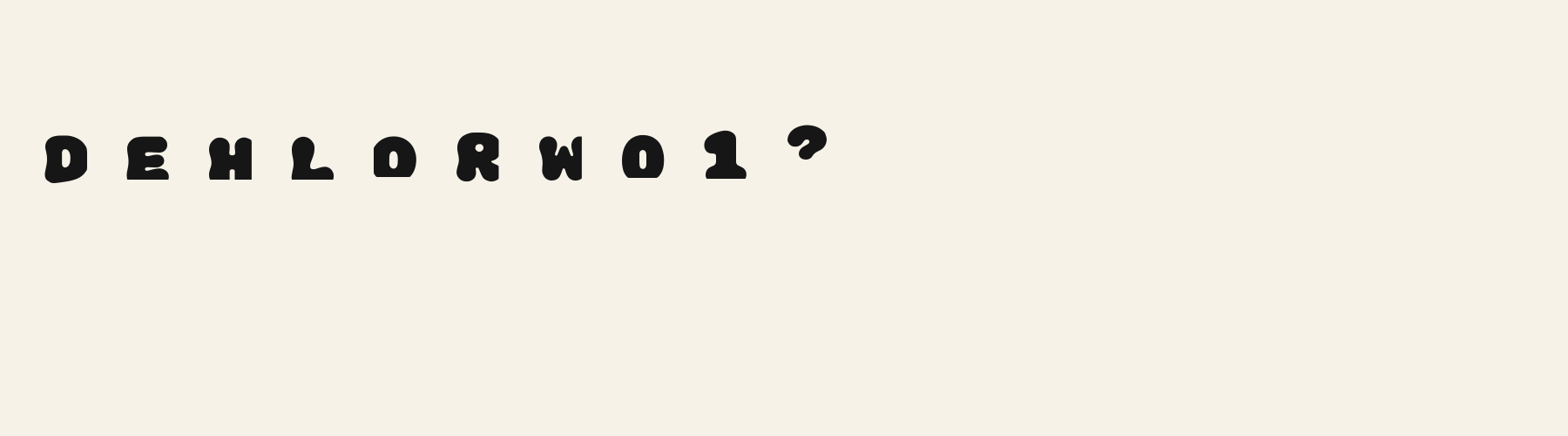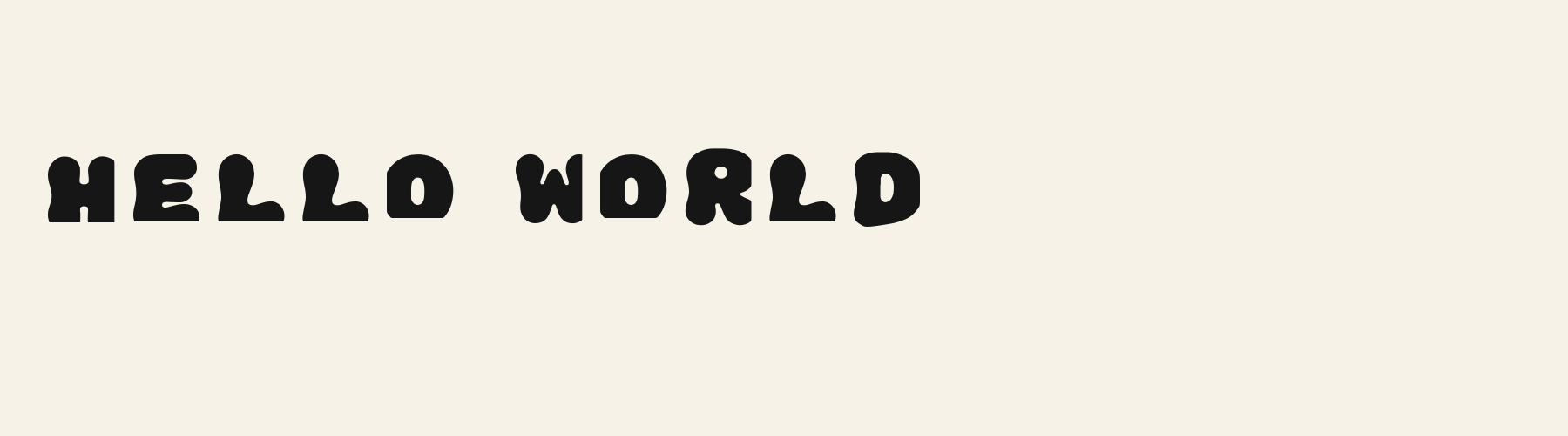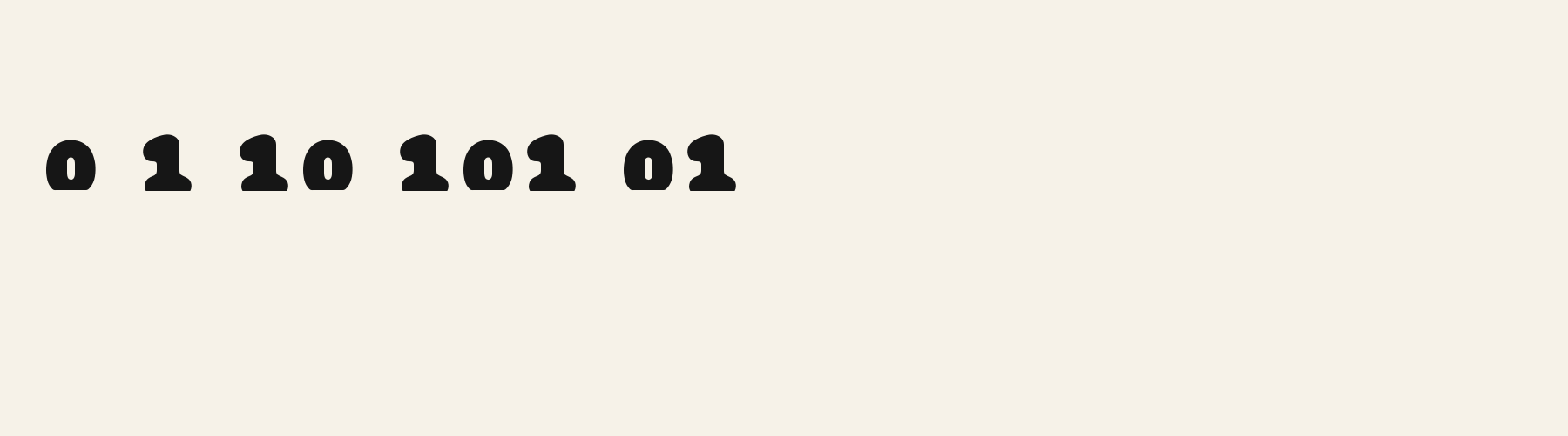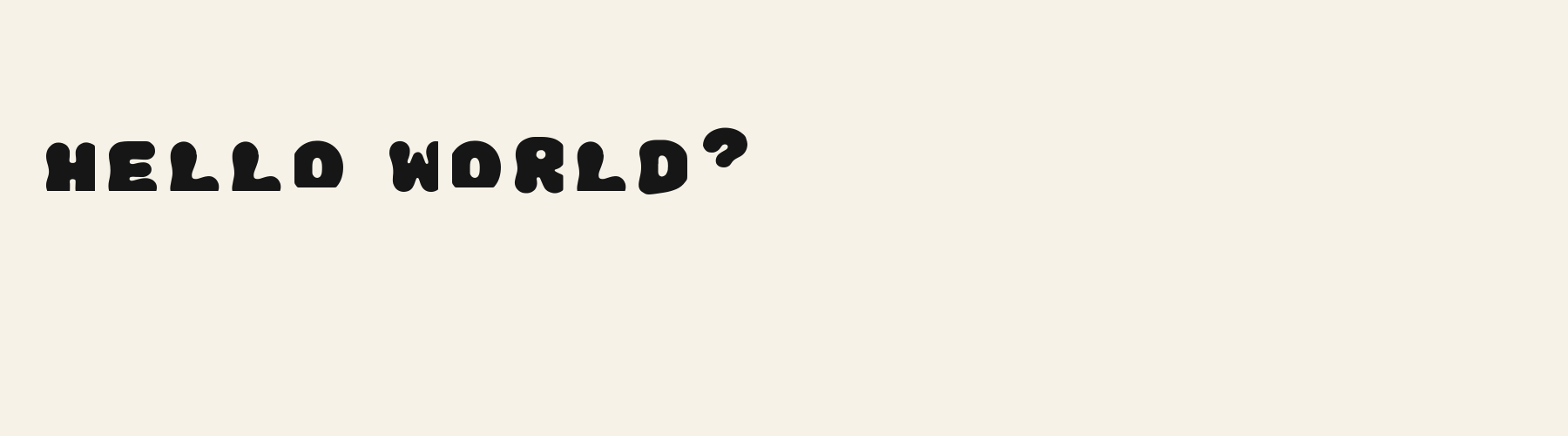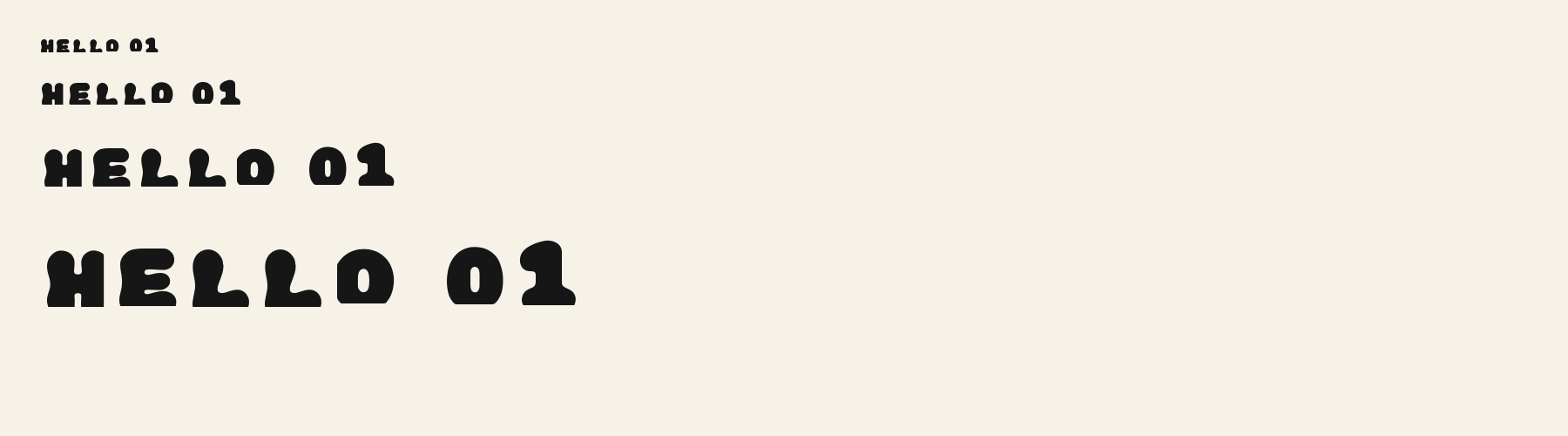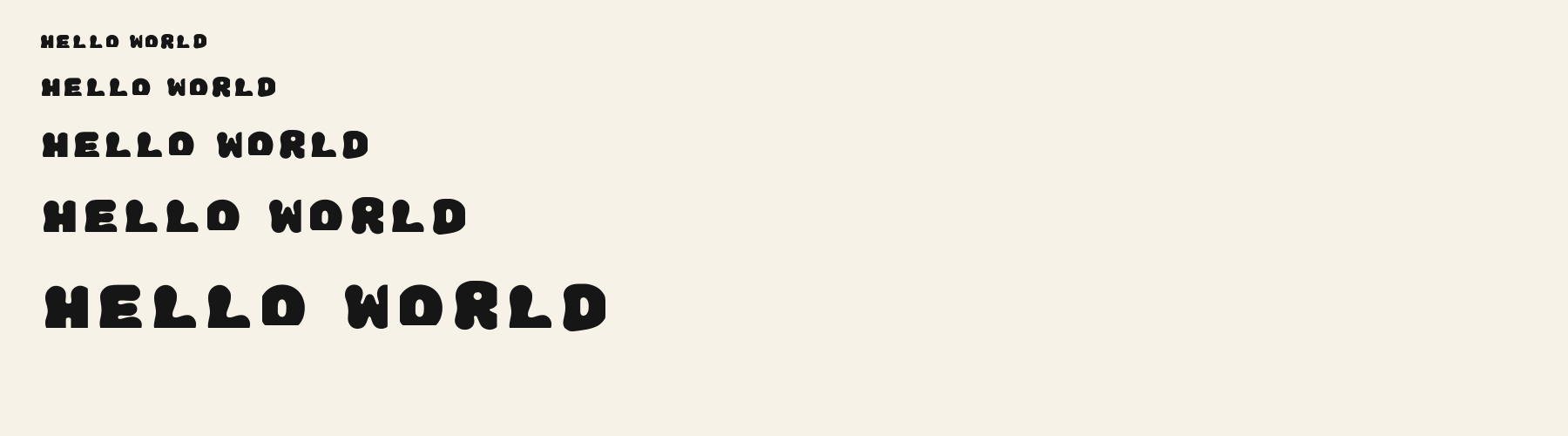
Display Retro Bubble packs broad, swollen letters into a dense line, with soft outer edges and small pockets of white inside.
Display Retro Bubble packs broad, swollen letters into a dense line, with soft outer edges and small pockets of white inside. The E has rounded arms separated by narrow channels that open at the right. The O pairs a domed outer contour and flattened base with a small upright oval counter. The R carries a tiny round counter above a short, rounded leg, with a sharp inward pinch separating its right-hand lobes. Heavy strokes dominate throughout, but uneven bulges and gently narrowing joins keep the lettering loose and playful. The result feels substantial, cushioned and slightly unruly.
Inspect the narrow E channels, small R counter and repeated L spacing in your actual Latin wording. Try punctuation alongside the letters, especially the heavy question mark. Check accented Latin and other scripts separately; these specimens establish only the shown Latin forms.
Let this face carry a short heading, then try a lighter sans serif for descriptions and practical labels. Its dense black shapes and tiny counters create a strong contrast with supporting text that has open interiors and a steadier rhythm.
Compare the original spacing with a slightly wider setting. The broad black letters already form a dense band; inspect whether extra space clarifies individual silhouettes while keeping the repeated L shapes connected as a word.
In this uppercase phrase, Display Retro Bubble has swollen contours, pinched H stems and small upright O counters. Its rounded L feet give the repeated letters a soft, irregular rhythm suited to playful wording.
Bulwark Block sets the same uppercase phrase with straight H stems, square L corners and broad, rounded rectangular O counters. The angular W adds a sharper rhythm, suggesting a more structured graphic treatment.
With an x-height of 78.6% of the cap height, its lowercase stands above the 74.4% median for display fonts, taller than 87 of the 116 other display fonts. Ascenders on b, d, h, k and l rise 4.4% above the capitals, and descenders on g, j, p, q and y drop 7.3% of the cap height below the baseline, shallower than 115 of the 116 other display fonts. It sets wide: an average lowercase letter, spacing included, is 97% as wide as the capitals are tall (an average capital, 107.6%), 11.4% more than the median for display fonts, so the same words take a longer line. The o is wider than it is tall, 1.17 to 1, and M is the widest capital, at 1.11 times the width of H. Round letters overshoot: O rises 0.5% of the cap height above H and dips 1.1% below the baseline.
The letters stand upright, leaning less than 2.5° either way. Vertical stems measure 41.5% of the cap height, the heaviest of all 59 display fonts. Ink covers 61.1% of each lowercase letter's box (its advance width by the cap height), darker than 115 of the 116 other display fonts. The contrast is mild: the sides of o and O are 1.32 times as thick as their tops and bottoms.
Its 95 characters include 52 Latin letters, plus 43 figures, punctuation marks and symbols; there are no accented Latin letters beyond A to Z. The word space measures 48.5% of the cap height, and the blank space either side of a lowercase letter takes up 10.3% of its width. The font carries no kerning, so spacing comes from each letter’s own side bearings. The figures have different widths, so columns of numbers set in Display Retro Bubble will not line up exactly.